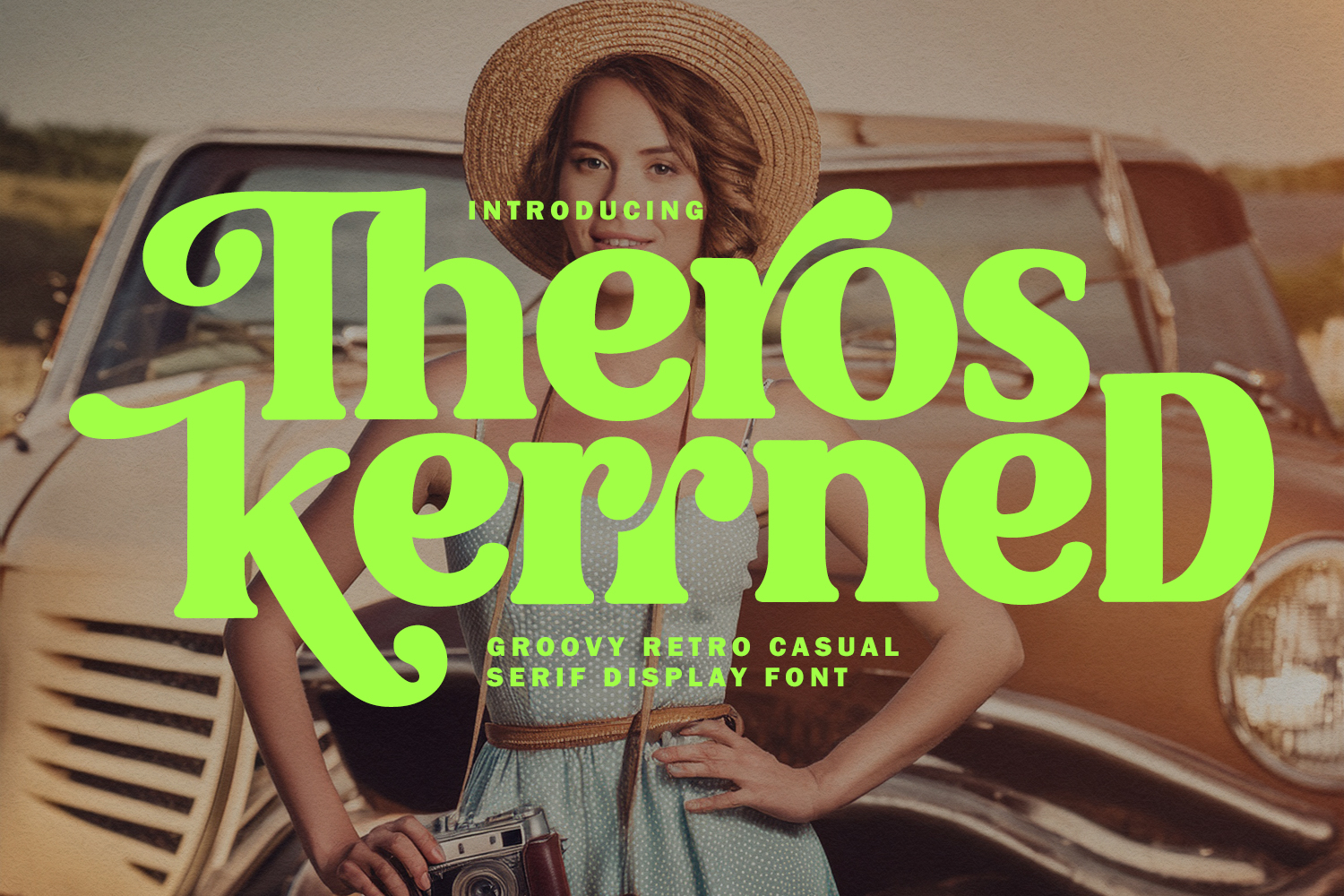
Embrace the nostalgic charm of the 70s and 80s with Theros Kerrned, a bold display serif that perfectly blends groovy aesthetics with a casual, modern twist. This font features unique swashes, elegant ligatures, and a playful personality that makes it ideal for high-impact branding, vintage-style, and editorial layouts. Whether you're designing for a beach-bound travel or a retro jewelry line, Theros Kerrned provides a sophisticated yet laid-back vibe that captures the "finest vibes" of the golden era.
- Ligature and alternates for a natural handwriting flow
Theros Kerrned